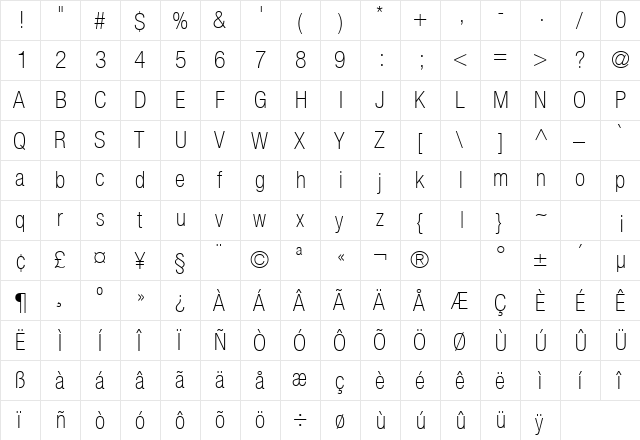
HeaveneticaCond3 ThinSH Font Preview
Design Context for HeaveneticaCond3 Typeface
HeaveneticaCond3 offers clean, dependable letterforms without strong stylistic allegiance, making it a practical choice for designers who need flexibility. Its slender proportions lend an understated elegance to any composition. Its narrow stance lets it pack a punch even in space-constrained designs.